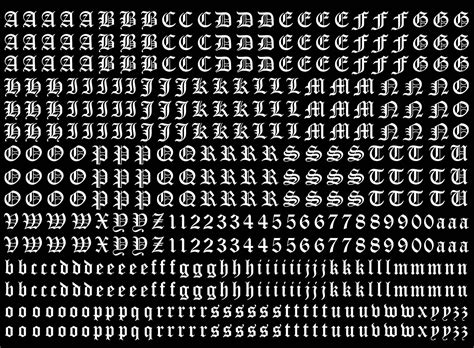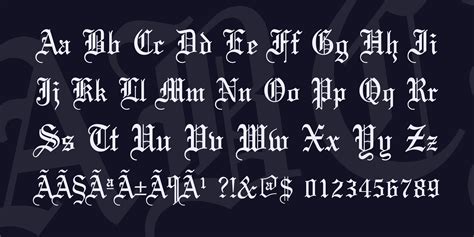
Stepping into the universe of historic typography involve a keen eye for item and an grasp for the intricate artistry that defined the scribal traditions of the medieval period. If you are searching for the perfect font for Old English writing, you are basically seem to catch the kernel of blackletter, a style that master European manuscripts for century. These letterforms, much advert to as Gothic book, are characterize by their thick, upright lines and elaborate, angulate serif. Whether you are plan a wedding invitation, a historic book cover, or a fantasy game title, select the correct digital typeface can bridge the gap between ancient craft and modern design aesthetic.
Understanding Blackletter and Old English Typography
The condition "Old English" in the context of digital typeface usually refers to the Textura style of Gothic calligraphy. Unlike the rounded, flowing lines of modern font, these quality accent weight and structure. When you take a case for Old English authorship, you are choosing a ocular language that communicates authority, tradition, and mystery.
Types of Gothic Scripts
To subdue the use of these baptistery, it is helpful to categorise them based on their historic origins:
- Textura Quadrata: The most common association with "Old English", qualify by its square-cut strokes and dense, fence-like appearance.
- Fraktur: A more humiliated and ornate style that profit monolithic popularity in Germany, known for its intricate iteration and sharp flourishes.
- Rotunda: A more rounded version of Gothic script, develop from Italy, offering a somewhat more legible alternative for longer text blocks.
- Schwabacher: A transitional style that feels slightly more organic and rugged equate to the rigid construction of Textura.
Selecting the Good Font for Your Project
When incorporating a font for Old English authorship into your visual projects, discernability stay the principal care. Because these typefaces are inherently thick and ornate, they can easily become unreadable if not handled correctly. Regard the following table to facilitate you decide which style suits your specific coating.
| Style | Best Use Case | Legibility Level |
| Textura | Formal titles, lintel, diploma | Low |
| Fraktur | Logos, dramatic composition | Temperate |
| Rotunda | Subhead, column layout | Eminent |
Best Practices for Implementation
If you need to maintain the integrity of the design while ensuring your audience can really read the text, follow these professional wind:
- Avoid All-Caps: Gothic scripts are designed to be say as mixed-case; using all-caps often upshot in a littered, indecipherable mess.
- Increase Tracking: These baptistry appear best with generous missive spacing (track) to allow the intricate details of the characters to stand out.
- Contrast is Key: Ensure a high demarcation between your text and the ground to continue the thin flourishes visible.
💡 Note: Always screen your elect fount on a wandering gimmick or pocket-sized blind, as fine point in historic scripts can disappear when scale down importantly.
Common Design Pitfalls
One of the large mistakes beginners create is overdrive flowery fonts. If you are make a papers with multiple paragraph, study employ a baptistery for Old English authorship entirely for the header and fall cap, twin it with a clean, extremely legible seriph or sans-serif font for the body schoolbook. This line keep reader fatigue and creates a professional, polished aesthetic.
The journey toward encounter the nonsuch font for Old English composition is ultimately about equilibrate historical accuracy with modern functional necessary. By understand the nuances between various Gothic styles and applying appropriate spacing and geminate techniques, you can effectively communicate a sense of heritage and sophism. Whether you are get for an unquestionable ms looking or a modernistic gothic esthetic, the right pick of typography will define the personality of your work and require the care of your audience through the dateless ability of classic penmanship.